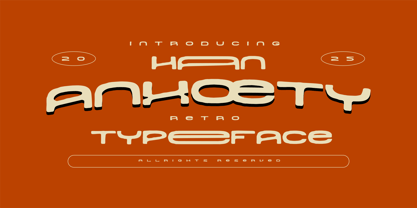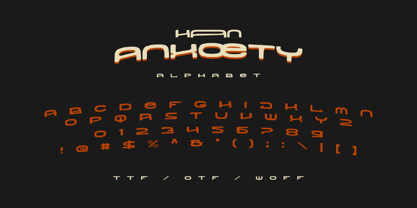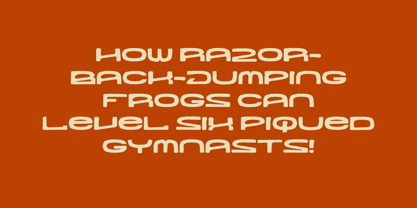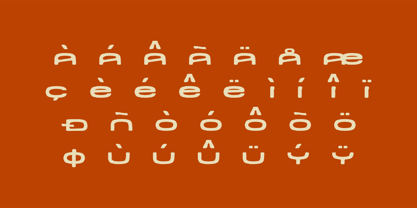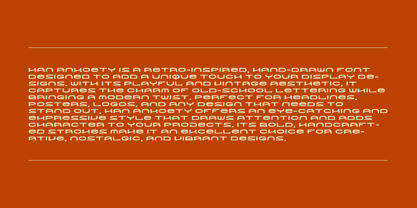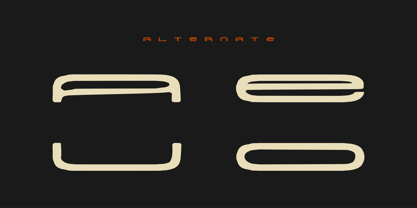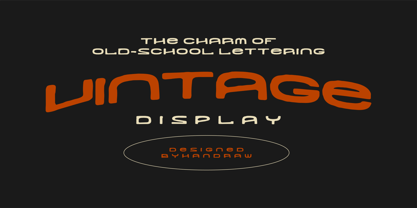
Anxoety
The Anxoety Font Family was designed by Endrawan Jihan and published by Byhans. Anxoety contains 1 styles. More about this family
Anxoety is a retro-inspired, hand-drawn font designed to add a unique touch to your display designs. With its playful and vintage aesthetic, it captures the charm of old-school lettering while bringing a modern twist. Perfect for headlines, posters, logos, and any design that needs to stand out, Anxoety offers an eye-catching and expressive style that draws attention and adds character to your projects. Its bold, handcrafted strokes make it an excellent choice for creative, nostalgic, and vibrant designs.